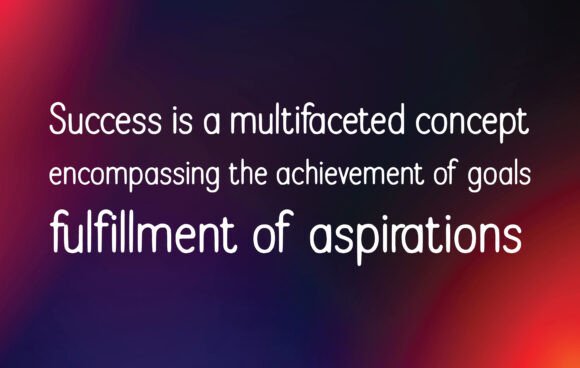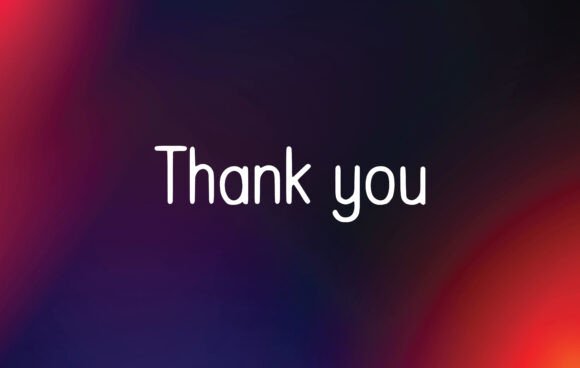
Introducing Hadler Font: Elevate Your Creative Projects with Elegance
Are you on the lookout for a font that can add a touch of elegance and sophistication to your creative projects? Look no further than the Hadler Font. This lovely and beautiful handwritten font has the potential to take your creative ideas to the highest level, making it the perfect choice for designers, crafters, and anyone looking to create visually stunning content.
What Makes Hadler Font So Special?
Hadler Font is a unique and versatile typeface that boasts a distinctive handwritten style. Its elegant and fluid lines make it perfect for creating eye-catching logos, branding materials, and quotes that are sure to capture the attention of your audience. Whether you’re working on a personal project or a client’s, Hadler Font is sure to impress.
The Perfect Choice for Creative Projects
So, what makes Hadler Font the best choice for your creative projects? Here are just a few reasons why designers and crafters love working with this font:
- Elegant and Sophisticated: Hadler Font has a timeless elegance that adds a touch of sophistication to any project. Its beautiful handwritten style makes it perfect for creating luxurious and high-end branding materials.
- Versatile: Whether you’re working on a logo, brochure, or social media graphics, Hadler Font is versatile enough to fit any design style. Its unique charm makes it perfect for a wide range of creative projects.
- Easy to Read: Despite its elegant style, Hadler Font is easy to read, making it perfect for body text and quotes. Its clear and legible design ensures that your message gets across with ease.
- Customizable: With Hadler Font, you can easily customize the text to fit your brand’s style. Whether you want to change the color, size, or spacing, this font is easy to work with.
Use Cases for Hadler Font
Hadler Font is perfect for a wide range of creative projects, including:
- Logo Design: Create a stunning logo that captures the essence of your brand with Hadler Font. Its elegant style makes it perfect for luxury brands, fashion labels, and high-end businesses.
- Branding Materials: From business cards to brochures, Hadler Font is perfect for creating branding materials that exude elegance and sophistication.
- Quotes and Posters: Add a touch of inspiration to your quotes and posters with Hadler Font. Its beautiful handwritten style makes it perfect for creating visually stunning graphics.
- Social Media Graphics: Elevate your social media graphics with Hadler Font. Its unique charm makes it perfect for creating engaging and shareable content.
Tips for Working with Hadler Font
Here are a few tips for getting the most out of Hadler Font:
In conclusion, Hadler Font is a beautiful and elegant handwritten font that has the potential to take your creative ideas to the highest level. Its versatile style makes it perfect for a wide range of creative projects, from logos and branding materials to quotes and social media graphics. With its easy-to-read design and customizable features, Hadler Font is the perfect choice for designers and crafters looking to add a touch of elegance and sophistication to their work.